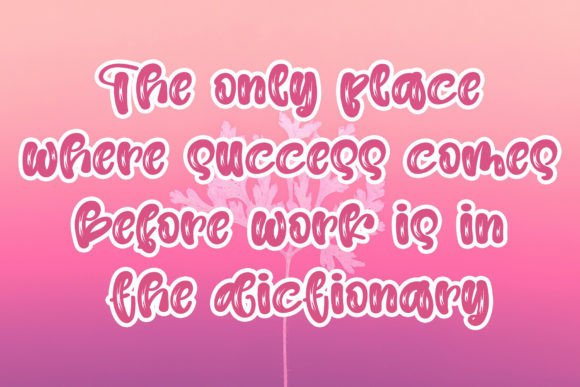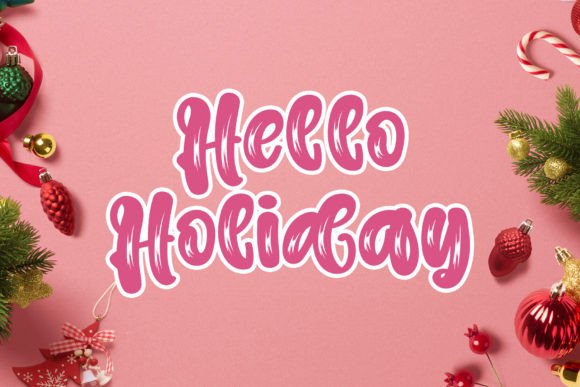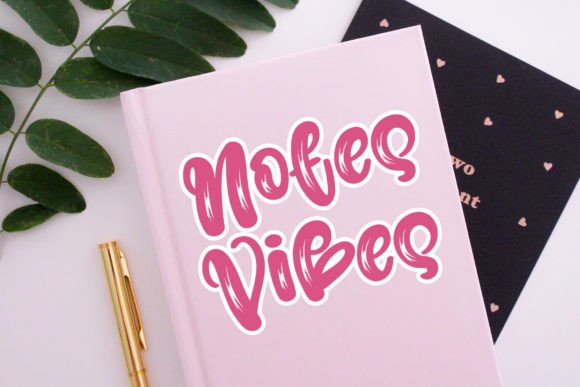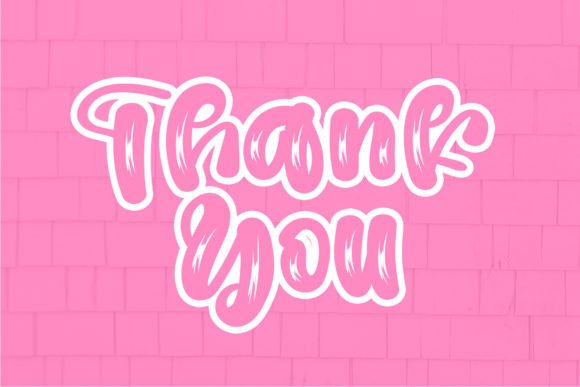
Introduction to Lovely Kitty Font
You’ve finally landed the perfect design brief, but something’s missing – a dash of whimsy, a pinch of nostalgia, and a whole lot of personality. That’s where Lovely Kitty Font comes in, a stunning display font that will elevate your creative project from meh to mesmerizing. With its playful, retro vibe, this high-quality font is the perfect design resource to add a touch of magic to your next big project.
Whether you’re a seasoned designer or just starting out, Lovely Kitty Font is a valuable addition to your toolkit. Not only is it a free download, but its transparent background makes it easy to use and customize. And with its incredible display capabilities, you’ll be able to create eye-catching designs that are sure to turn heads. So why settle for boring when you can have beautiful with Lovely Kitty Font?
Get ready to unleash your creativity and take your designs to new heights with Lovely Kitty Font. This masterfully designed font is the perfect companion for any design project, and we can’t wait to see what you create with it!
Key Features of Lovely Kitty Font
- High-quality, cursive font perfect for creative projects
- Unique, whimsical design that adds a touch of playfulness to any project
Honest Review: Lovely Kitty Font
I recently came across the Lovely Kitty Font, and I must say it’s a great addition to any designer’s toolkit. As a design enthusiast, I appreciate high-quality fonts that can elevate a project to the next level.
The Lovely Kitty Font is available for free download, making it an excellent design resource for creatives on a budget. One of the standout features of this font is its transparent background, which allows for seamless integration into various design projects.
Here are some aspects that work well:
- ✨ Unique and playful design that adds a touch of whimsy to any project
- ✨ Highly customizable, making it suitable for a wide range of creative projects
- ⚠️ Limited character set, which may not be ideal for extensive text-based projects
- ⚠️ Not suitable for formal or professional designs, as it may come across as too playful
Overall, I’m impressed with the Lovely Kitty Font. While it may have some limitations, its unique design and high-quality aesthetic make it a valuable addition to any designer’s library. I’d definitely recommend it for creative projects that require a touch of personality.
The Lovely Kitty Font is perfect for use in social media graphics, presentations, and documents. It’s also a great choice for designers looking to add a playful touch to their creative project. Some common use cases include:
– Social media graphics and posts
– Presentation slides and handouts
– Document headers and footers